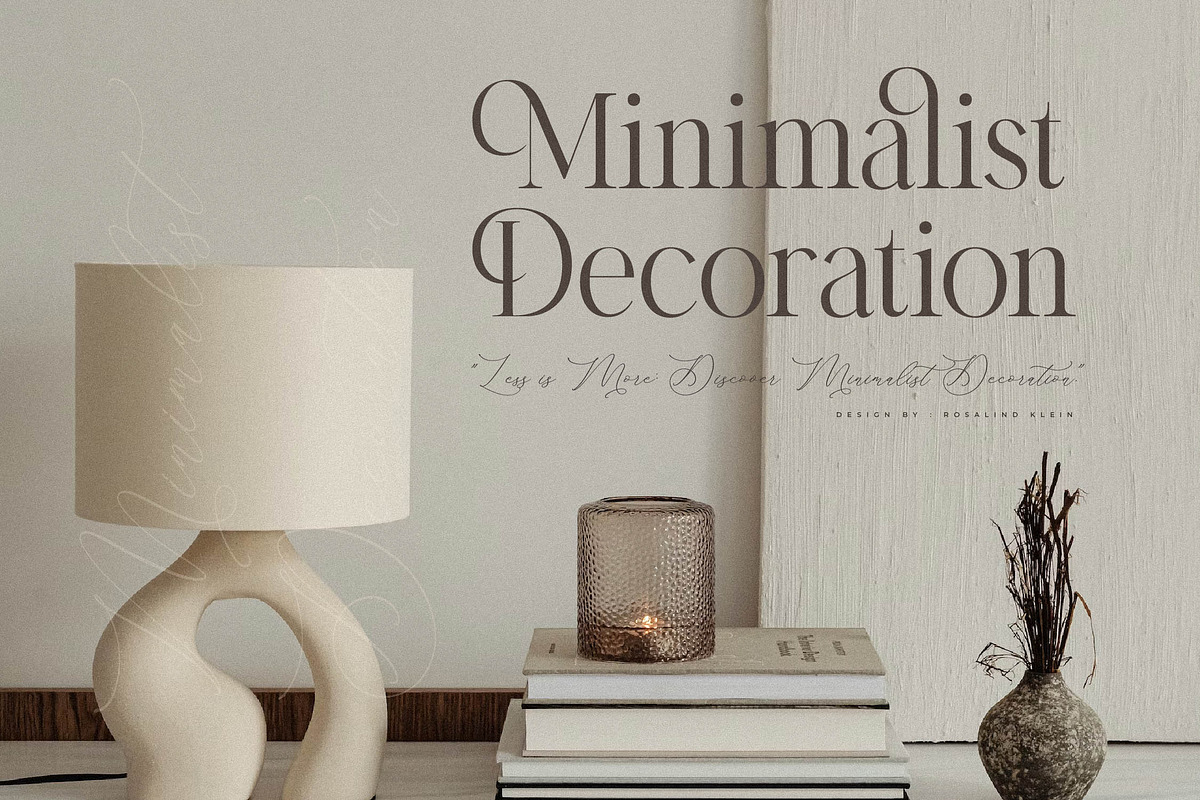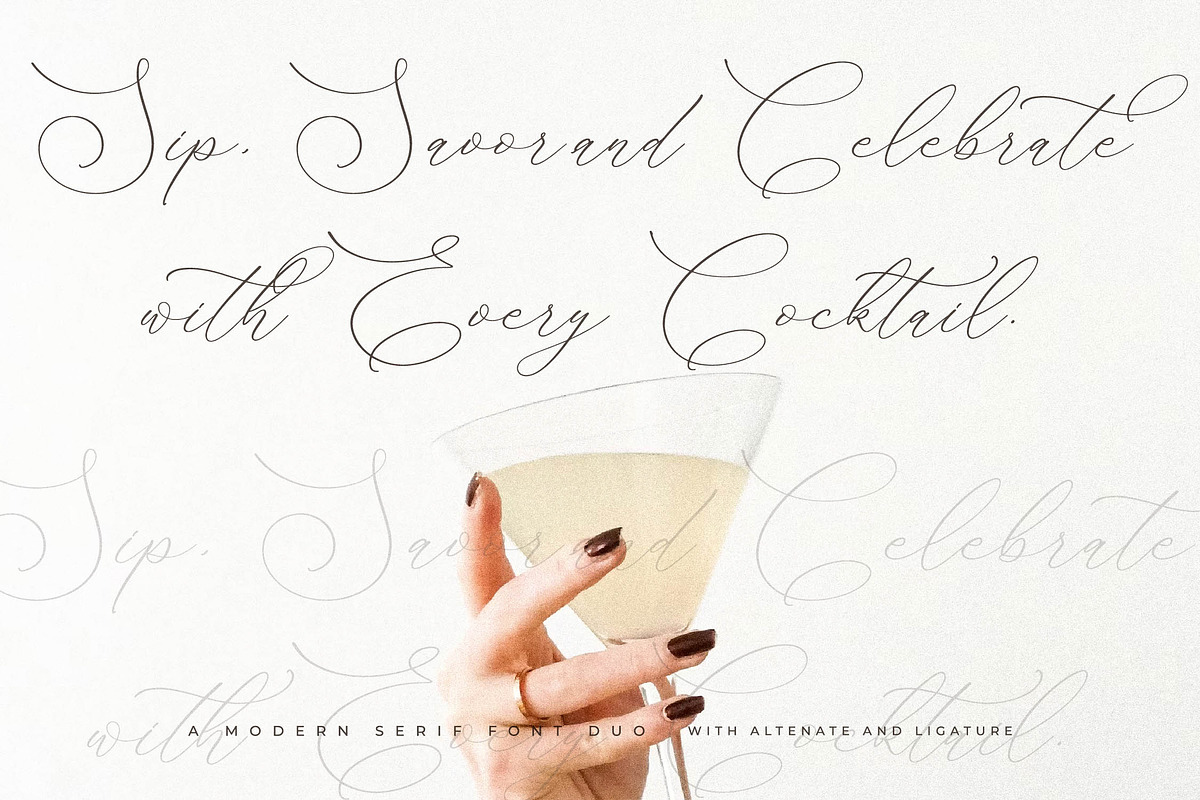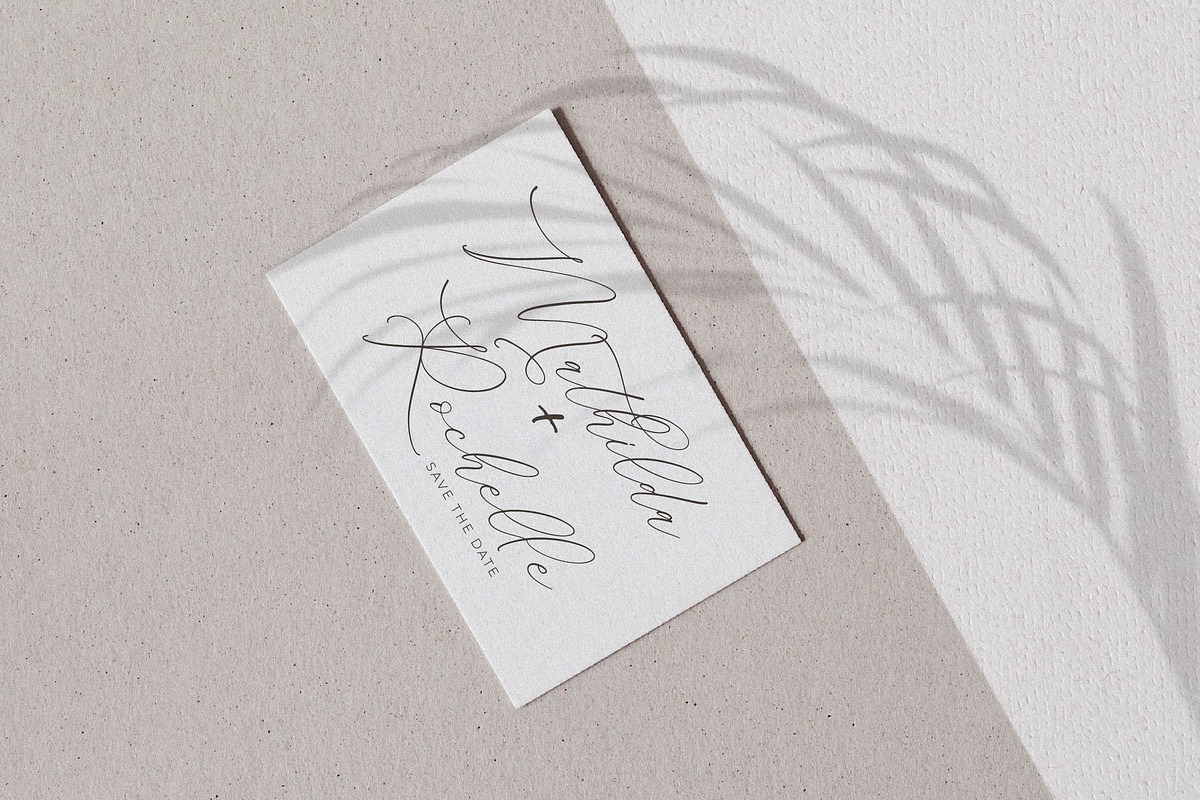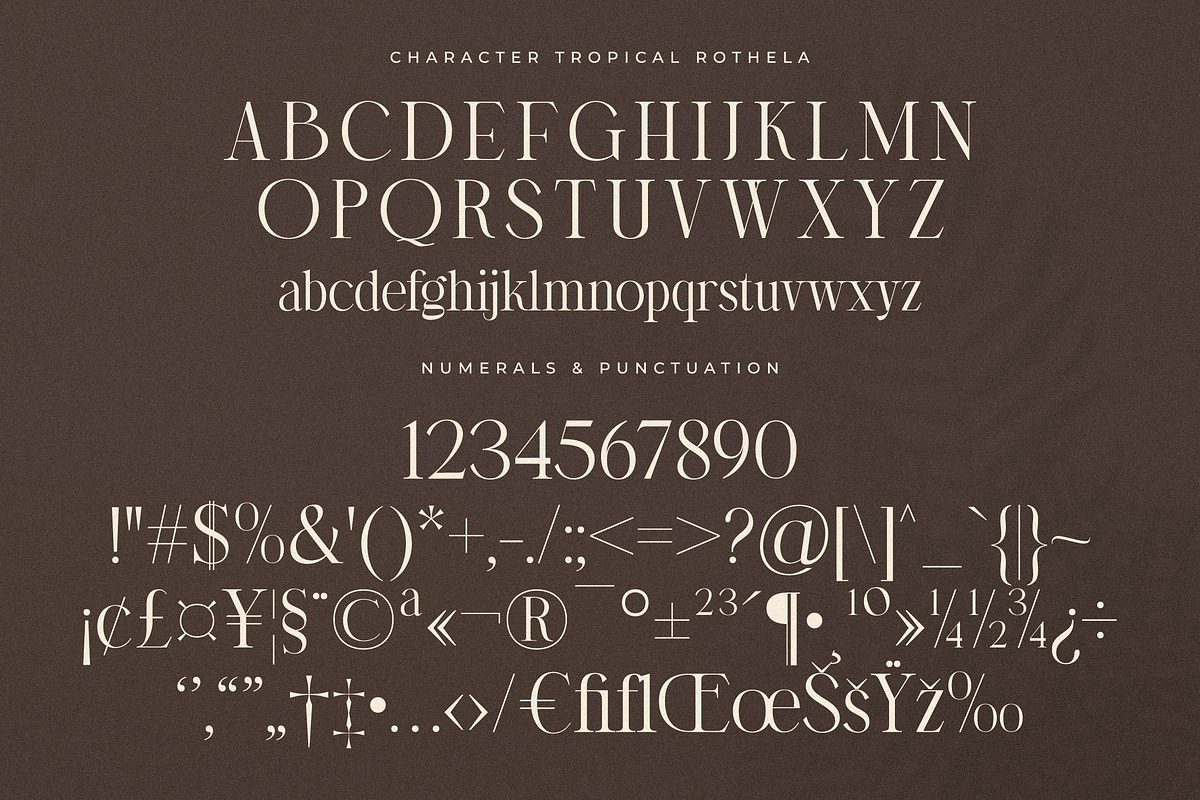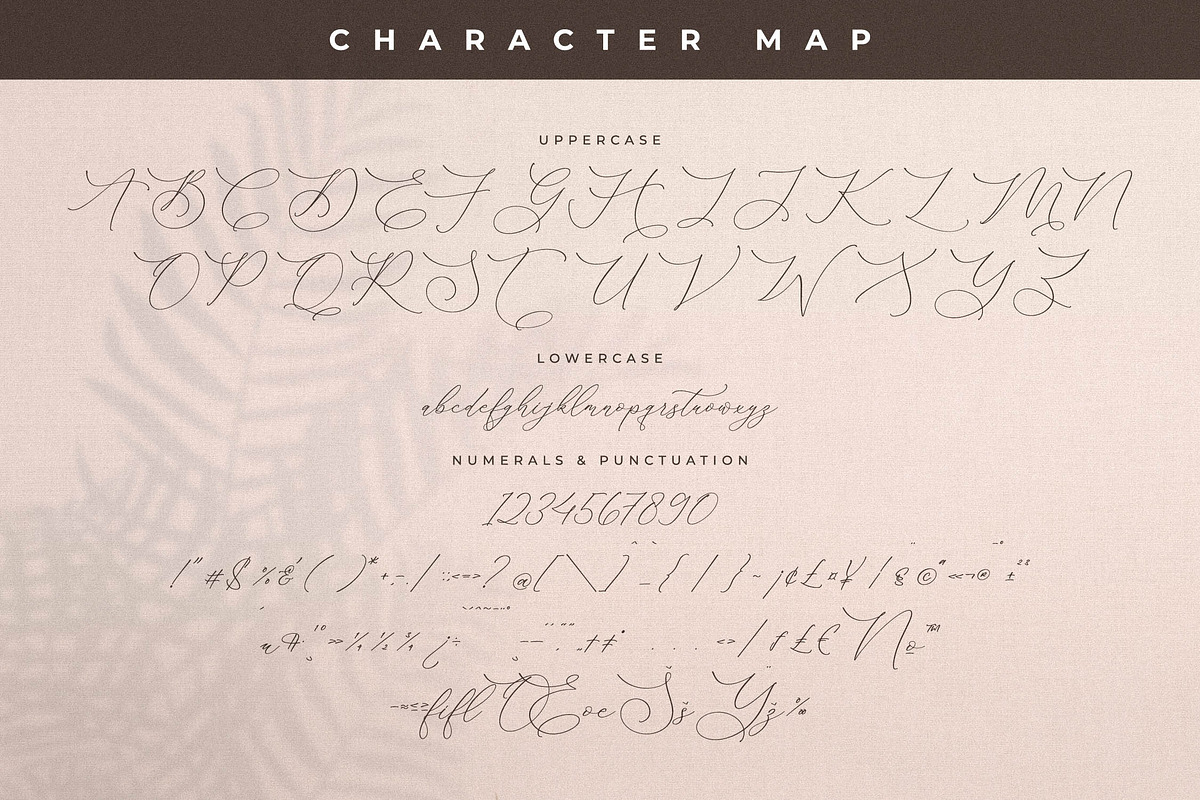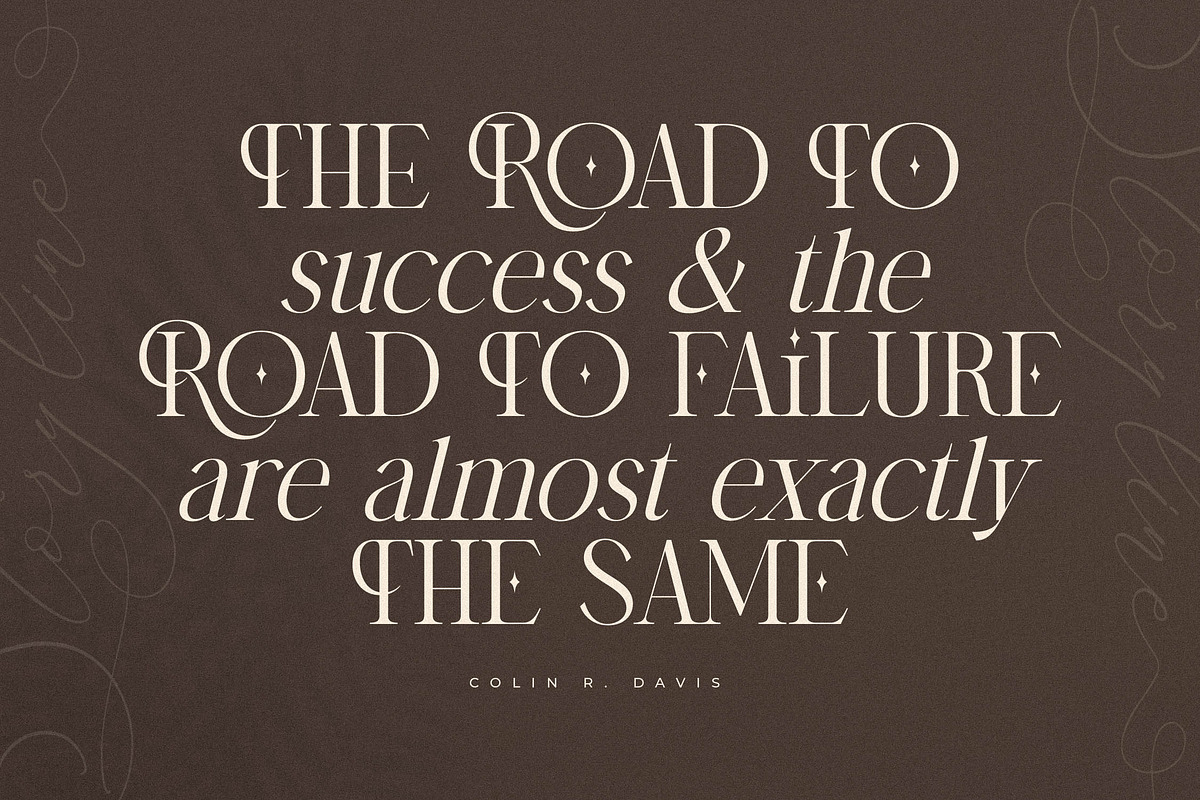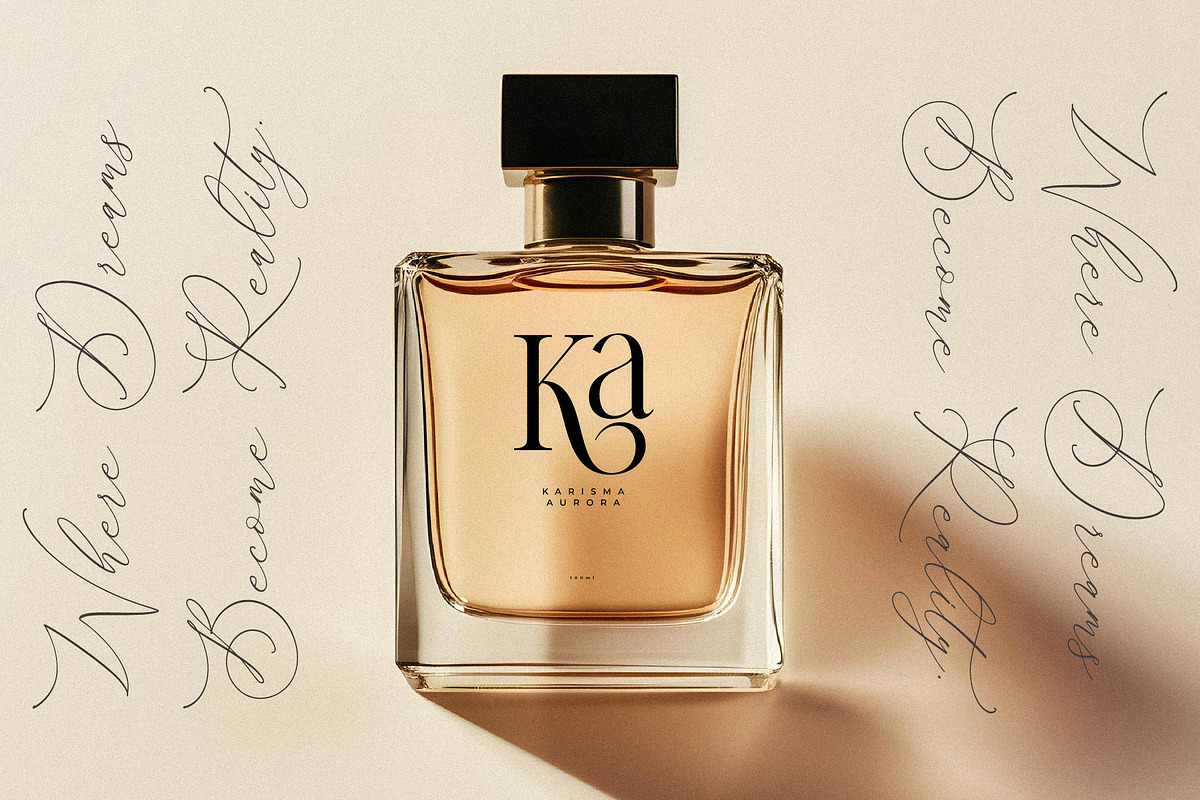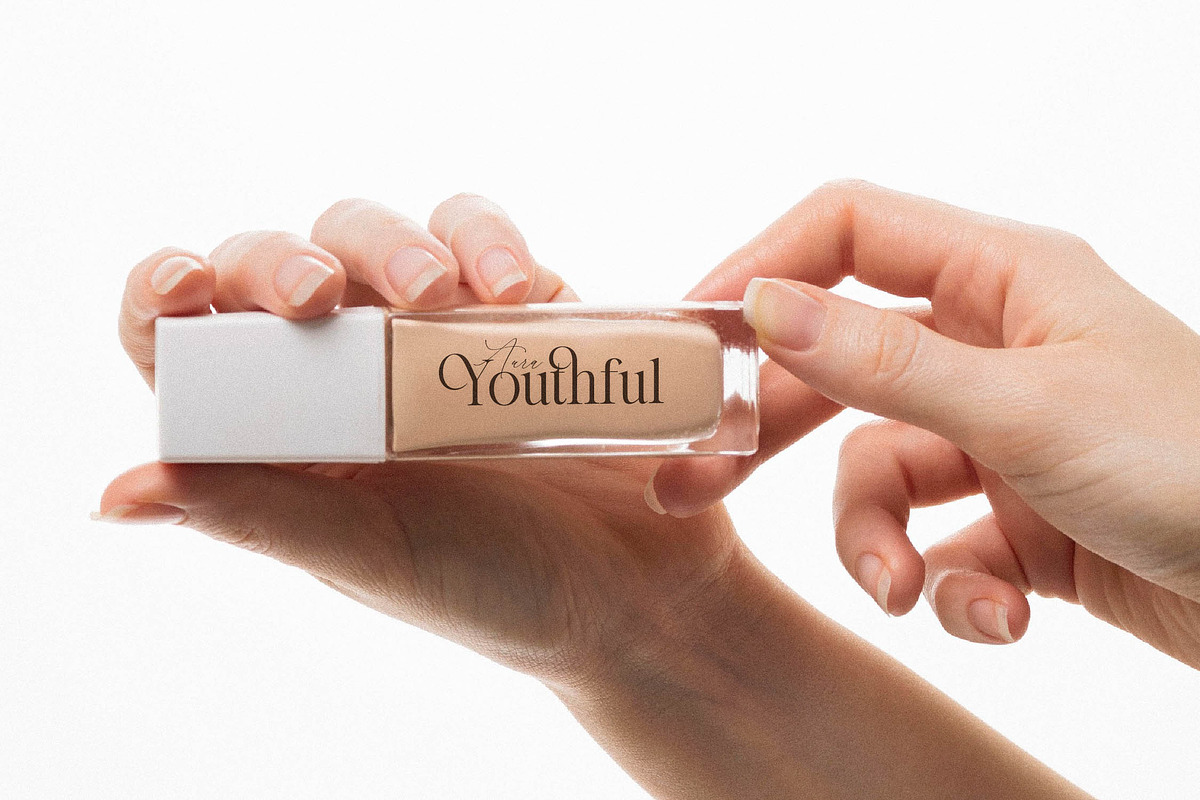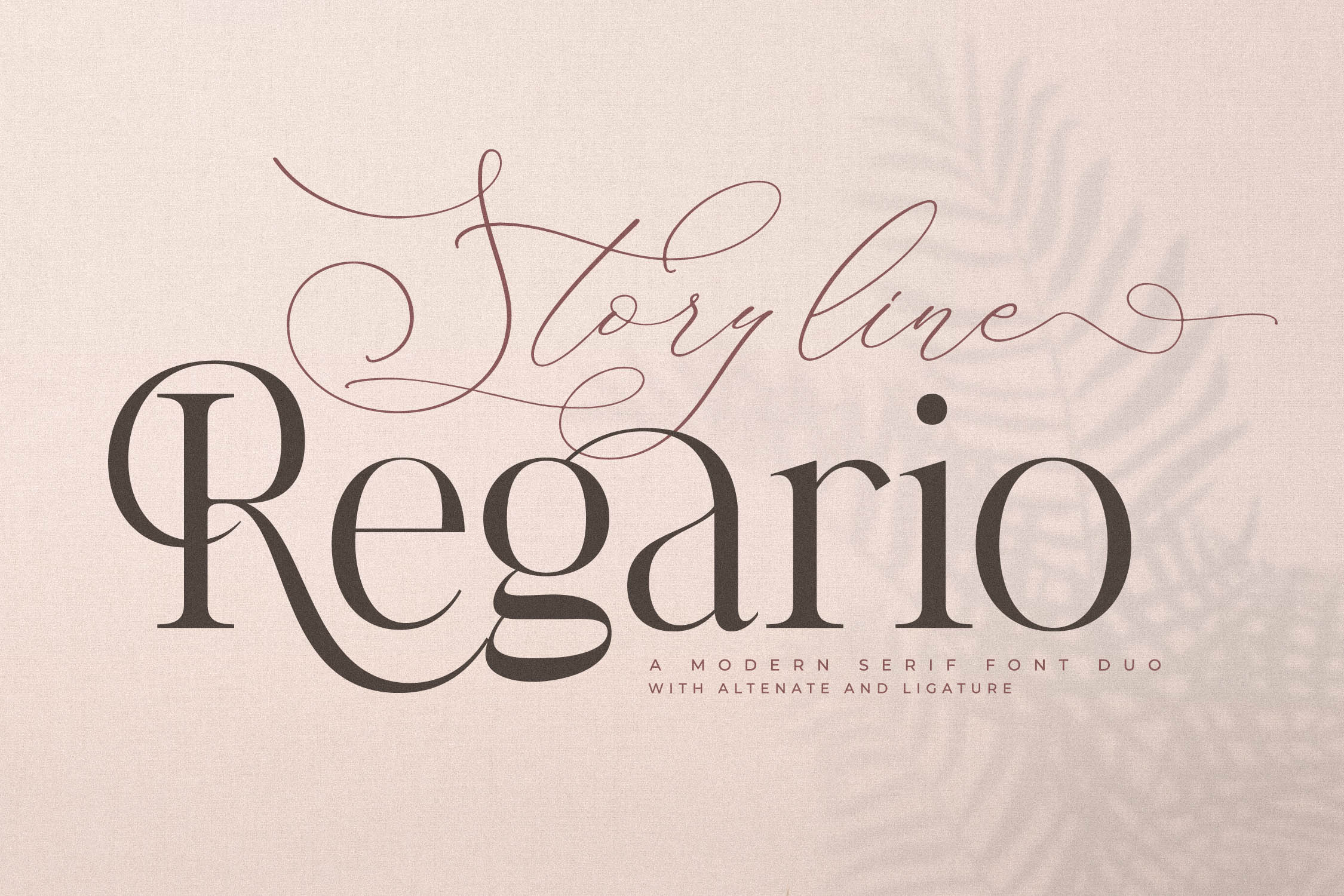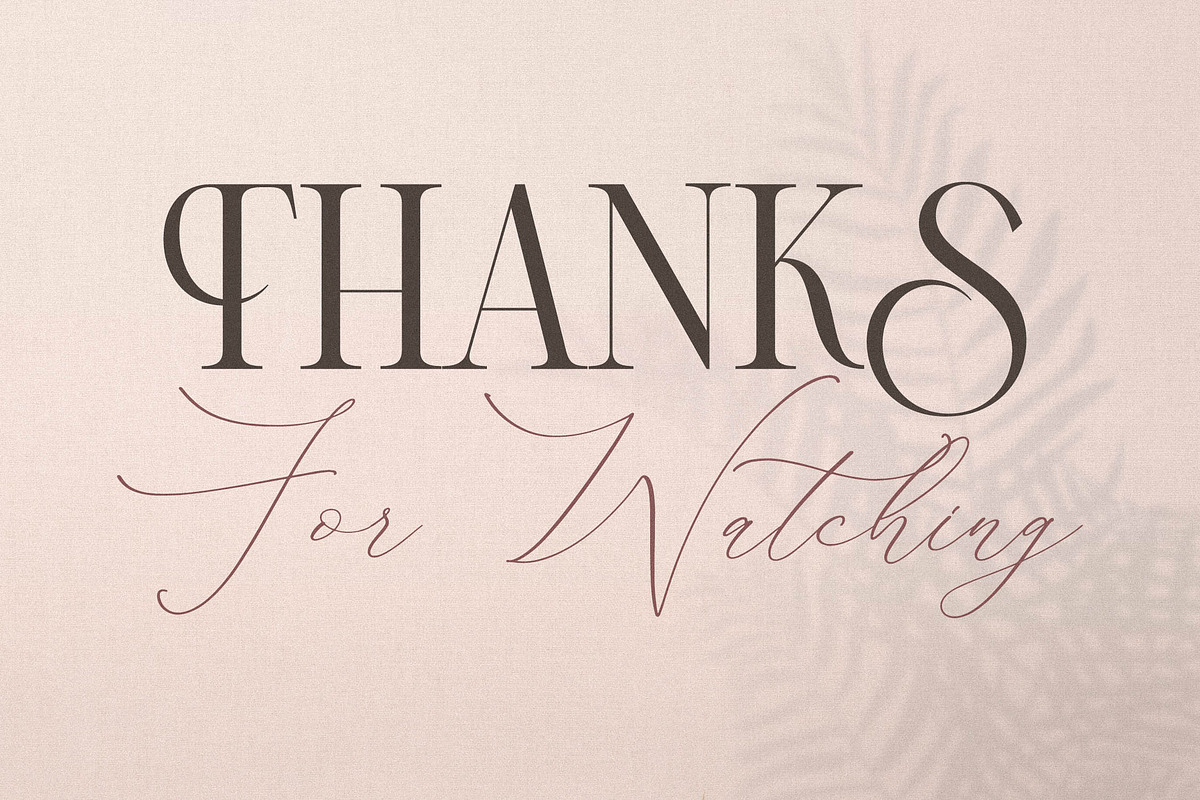
Storyline Regario Font Duo
Proudly present Storyline Regario Font Duo , created by Storytype, A serif and script typeface that has own unique style & modern look. This typeface is perfect for an elegant & luxury logo, book or movie title design, fashion brand, magazine, clothes, lettering, quotes, and so much more.